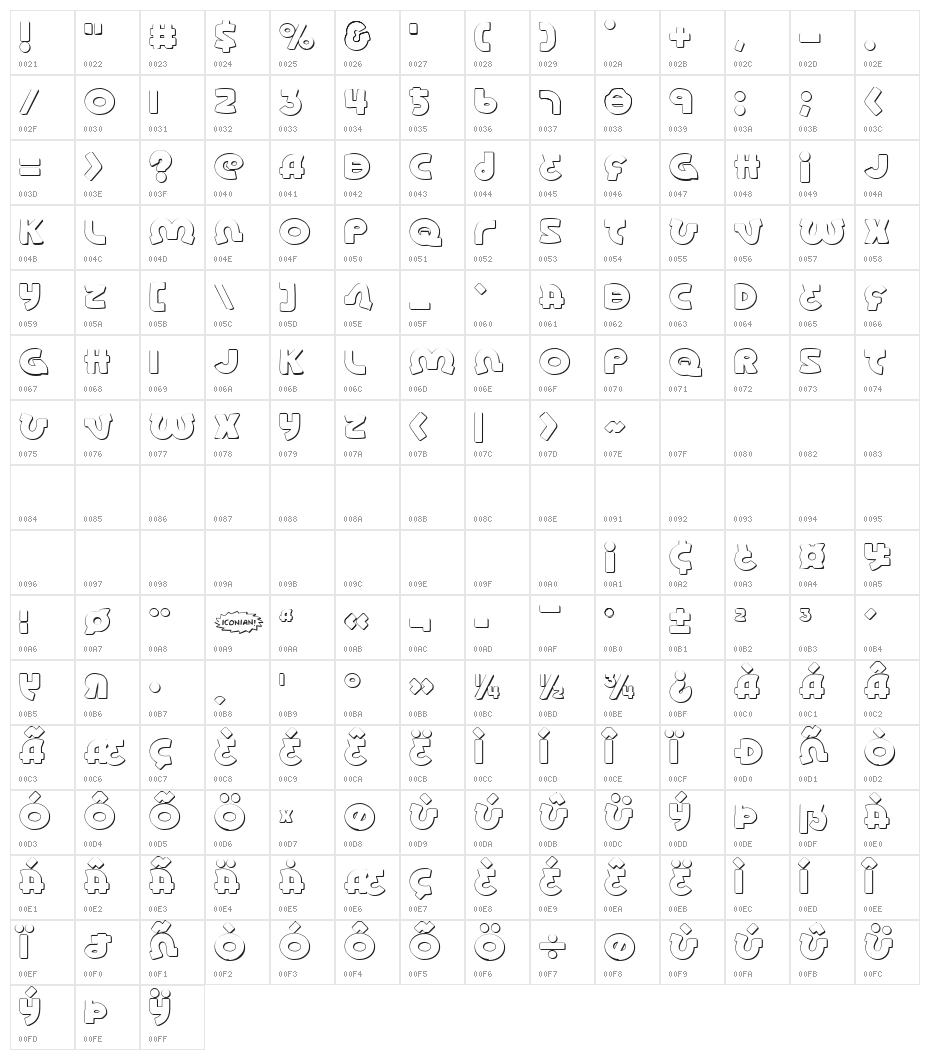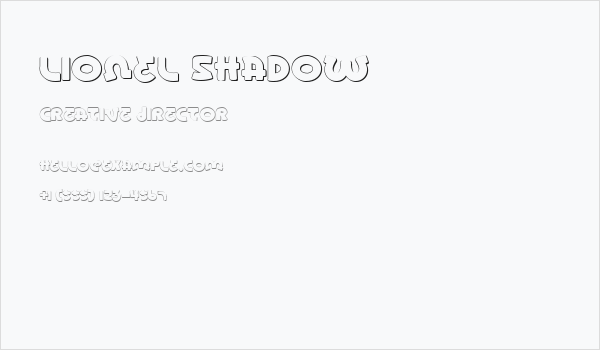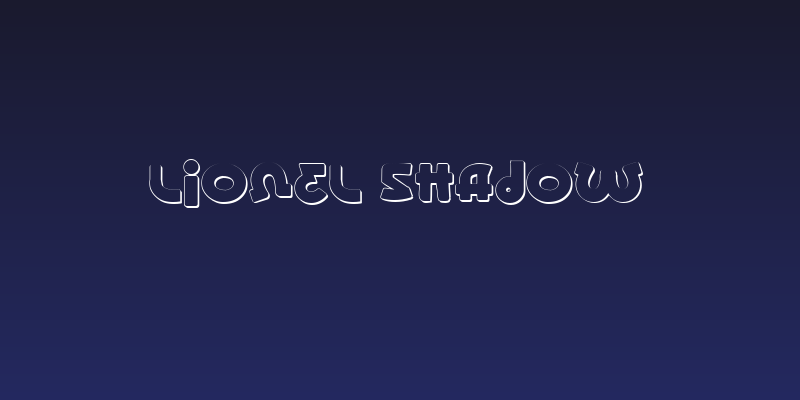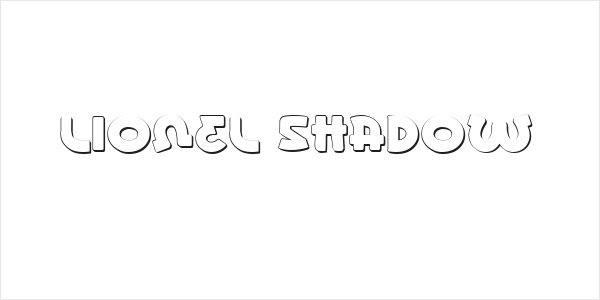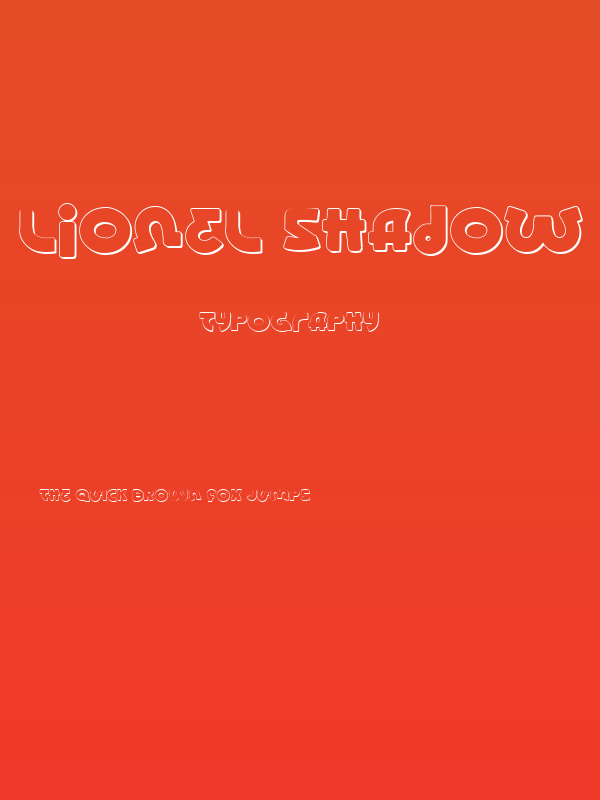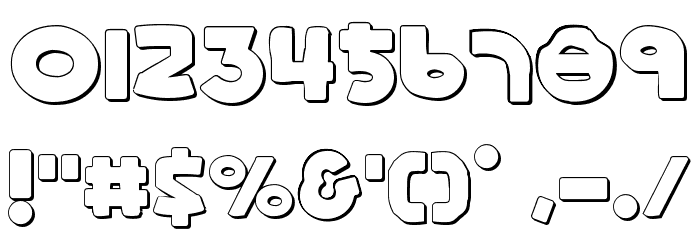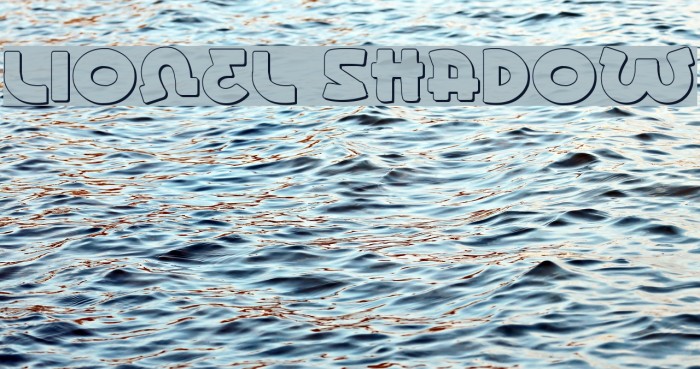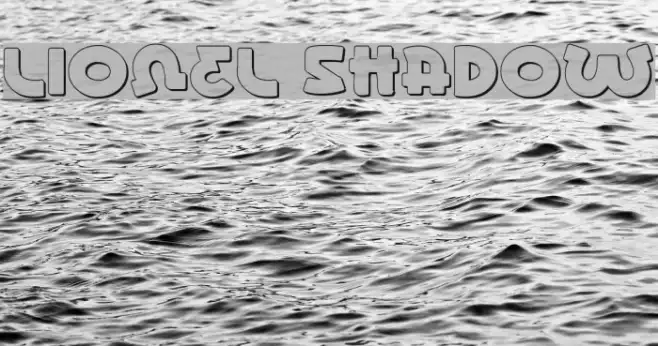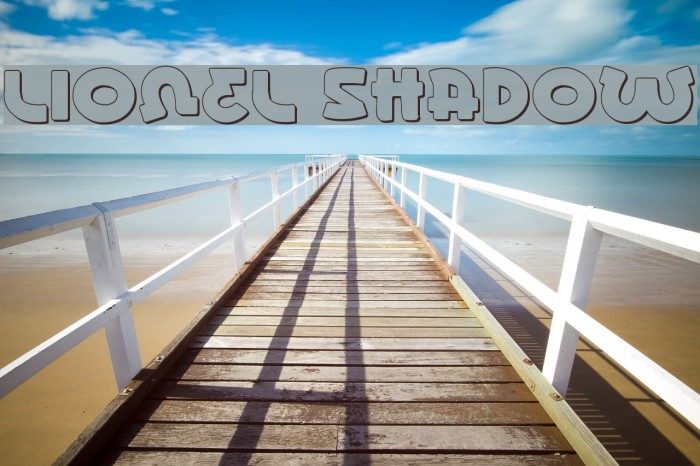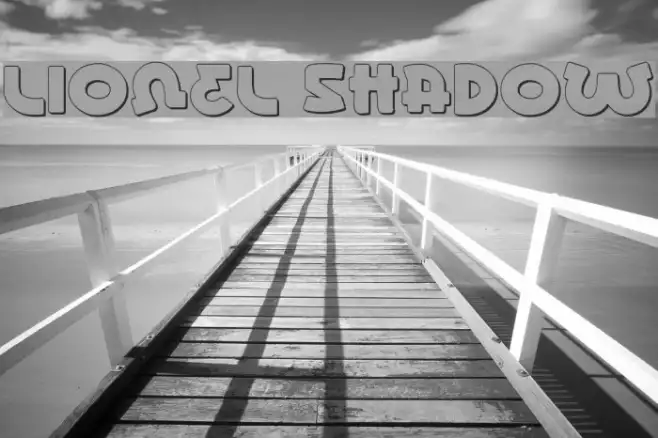
Lionel Shadow Font
Lionel Shadow Description
This font features a bold, playful design with a shadow effect that gives each character a three-dimensional appearance. The letters are rounded and thick, with a consistent stroke width that adds to its boldness. The shadow effect is subtle yet effective, creating a sense of depth without overwhelming the primary letterforms. The font includes both uppercase and lowercase letters, numbers, and a variety of special characters, making it versatile for different uses. Its unique style is eye-catching and suitable for projects that require a fun and engaging aesthetic.
| Overall Style | Playful, Modern |
| Proposed Projects | Ideal for children's books, playful branding, posters, and creative digital content. |